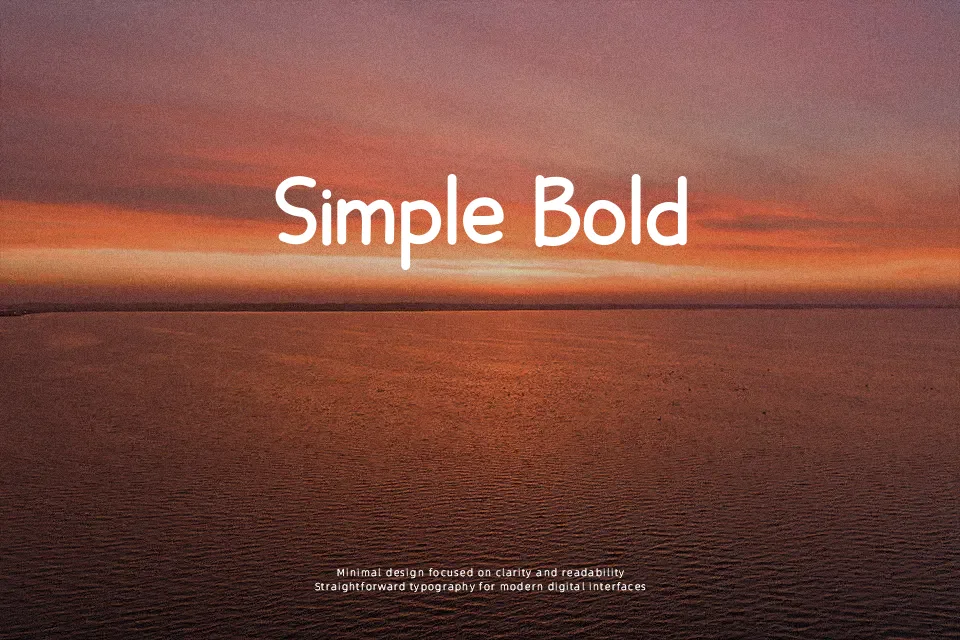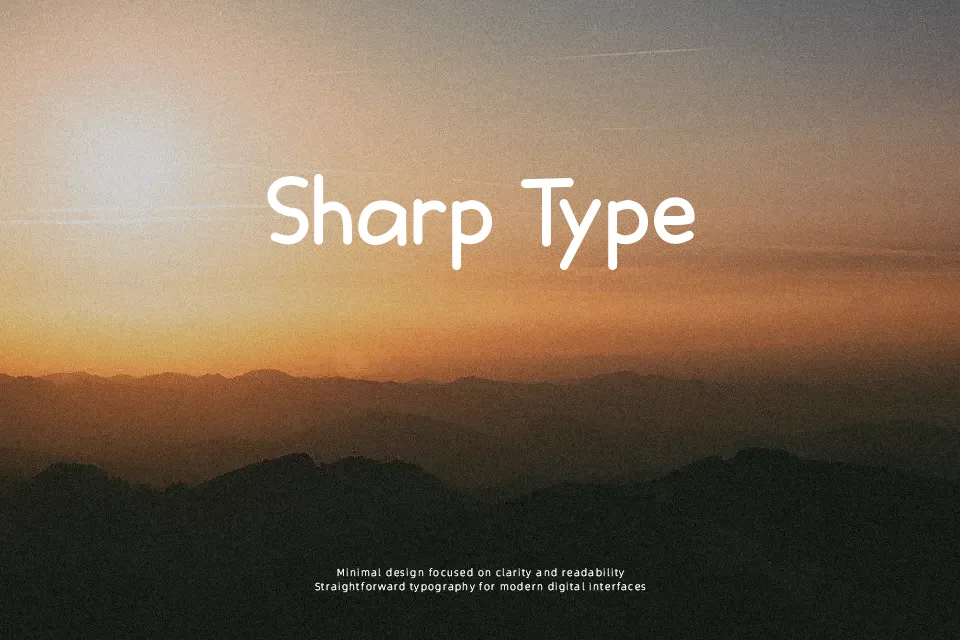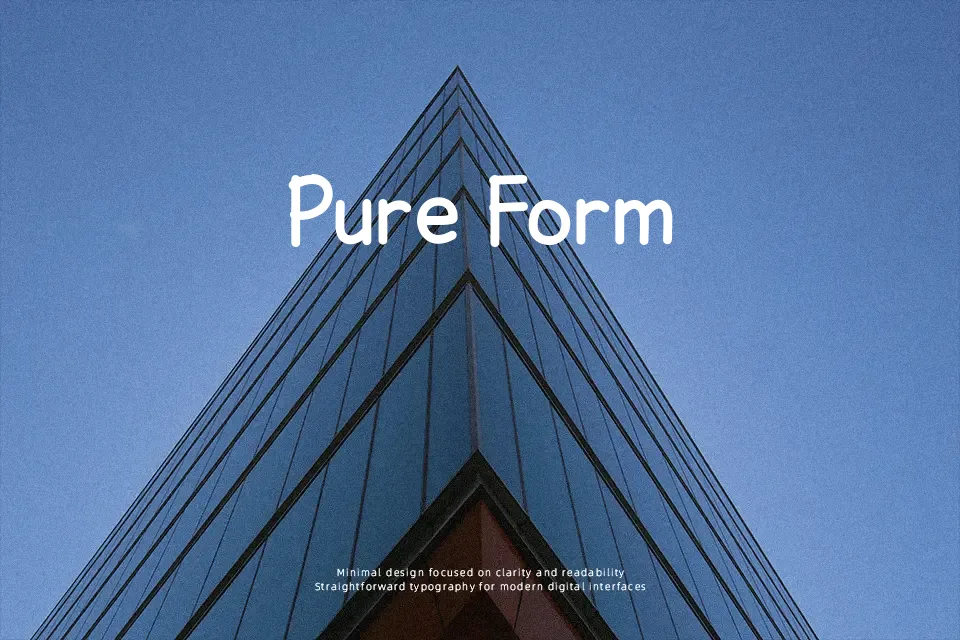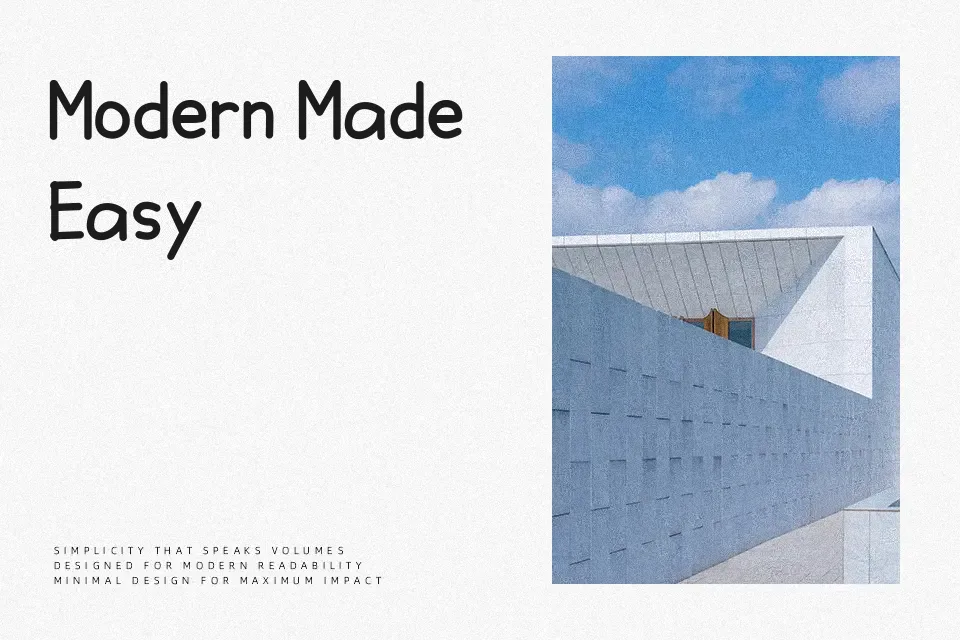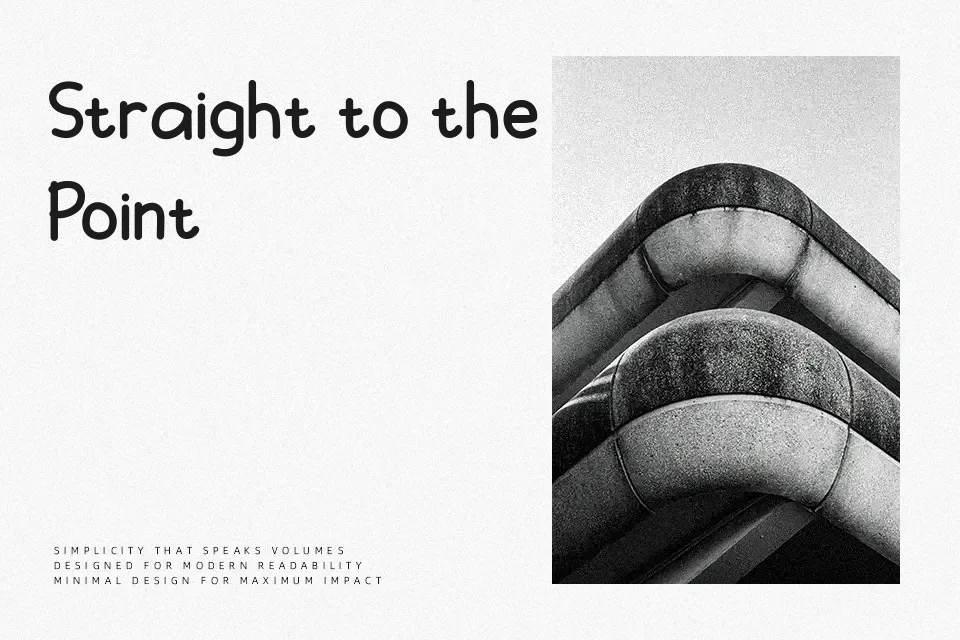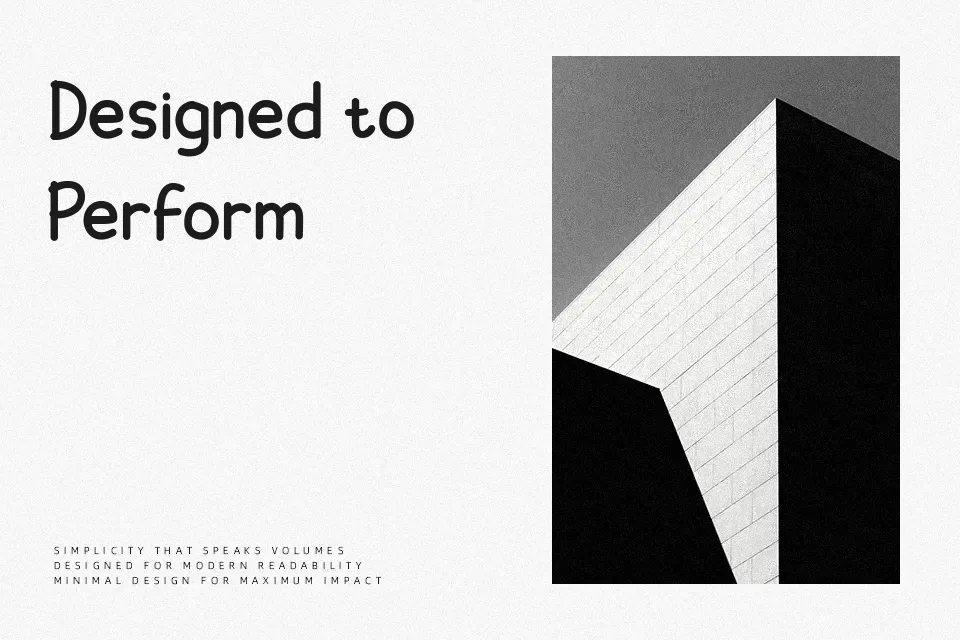
Children Sans Font
Children Sans Font establishes a relaxed, approachable presence through rounded monoline strokes and softly curved junctions. The design maintains balanced proportions and open counters, which keep individual characters easily recognizable in medium and large display formats. Generous tracking prevents adjacent glyphs from tangling, allowing headlines on children’s book covers, educational worksheets, and toy branding to communicate with cheerful clarity. However, the informal structure and subtle baseline variations reduce reading rhythm when set in continuous multi-page body text. For prominent display titles and welcoming signage, the typeface delivers a delightful visual impact that feels unpretentious and consistently legible.
Best For: illustrated storybook covers, toy packaging labels, classroom educational posters, youth event signage
Not Ideal For: lengthy editorial body text, corporate annual reports, dense technical manuals, legal contract documentation
Perfect for headline, kids, and packaging, with a creative and comic style.